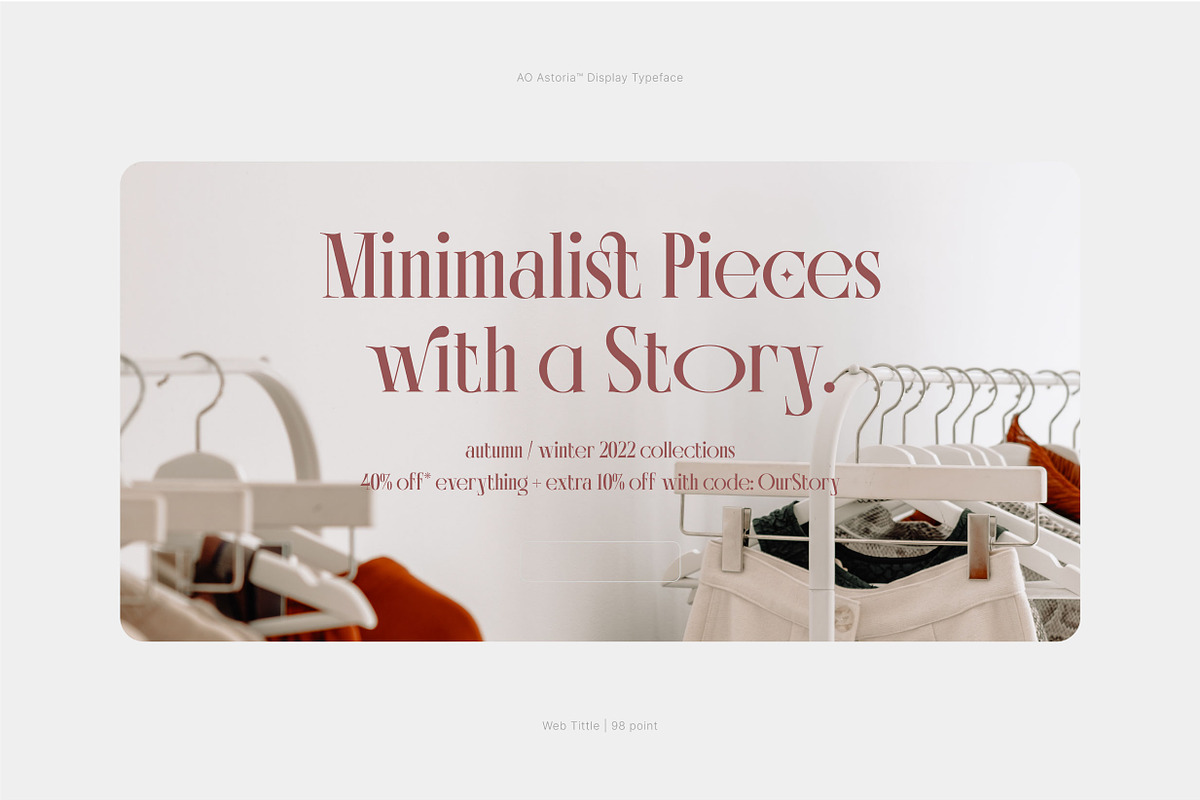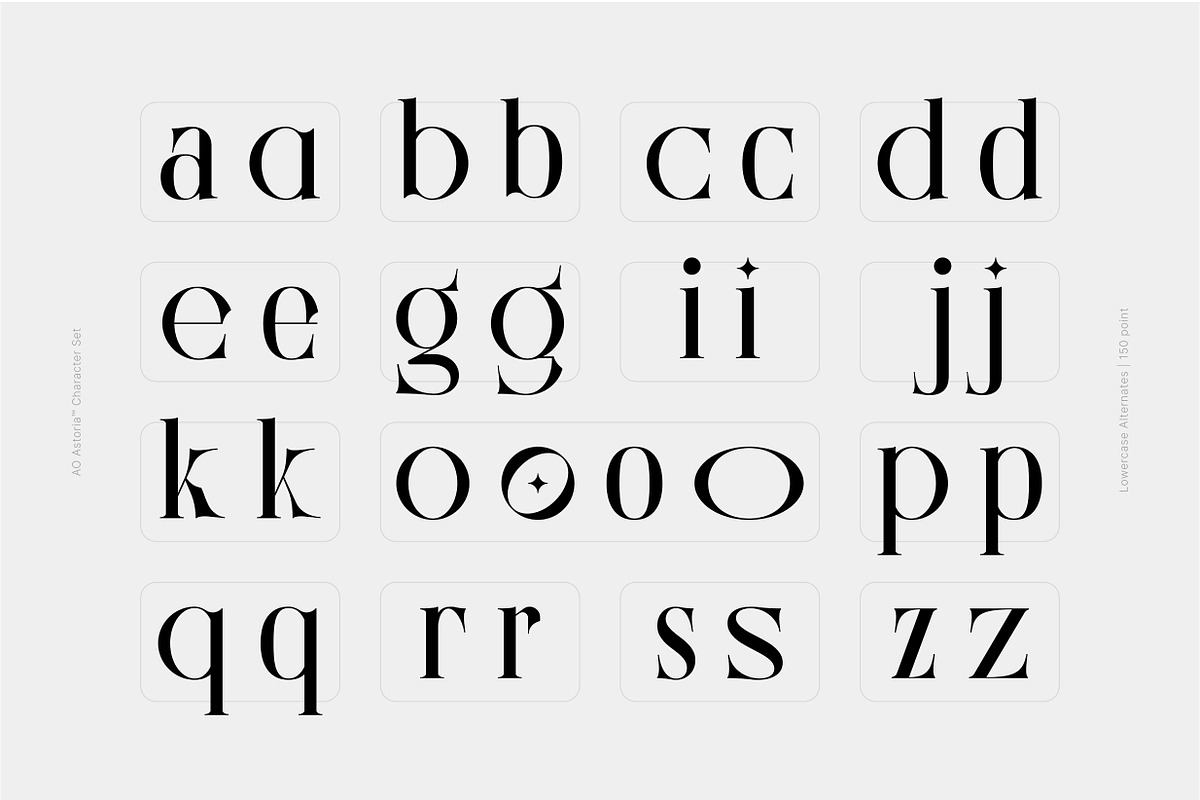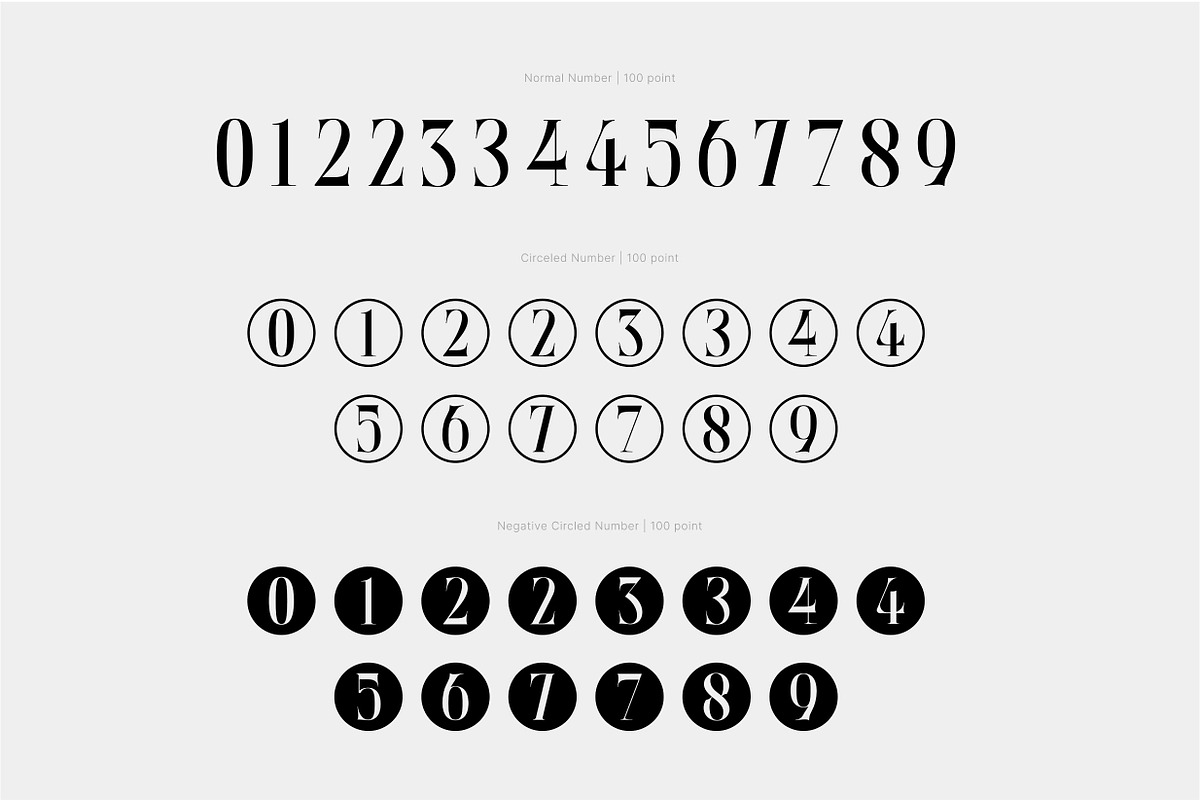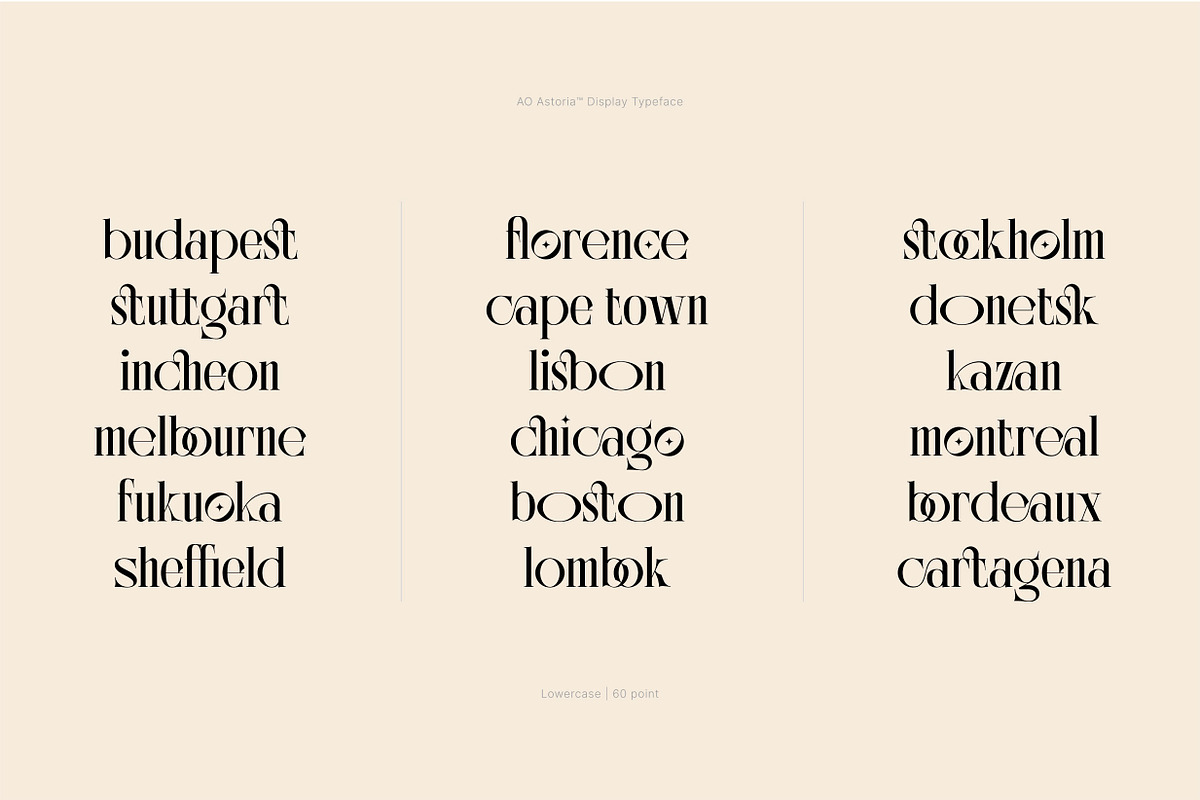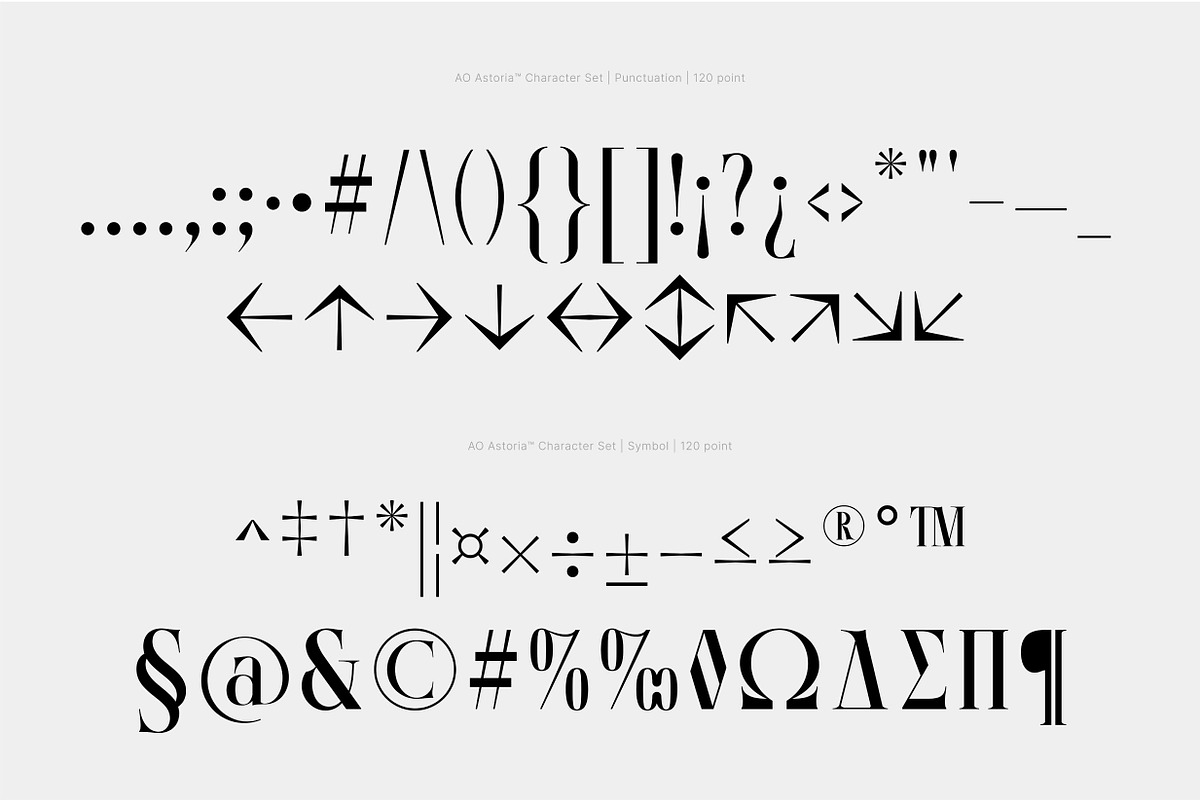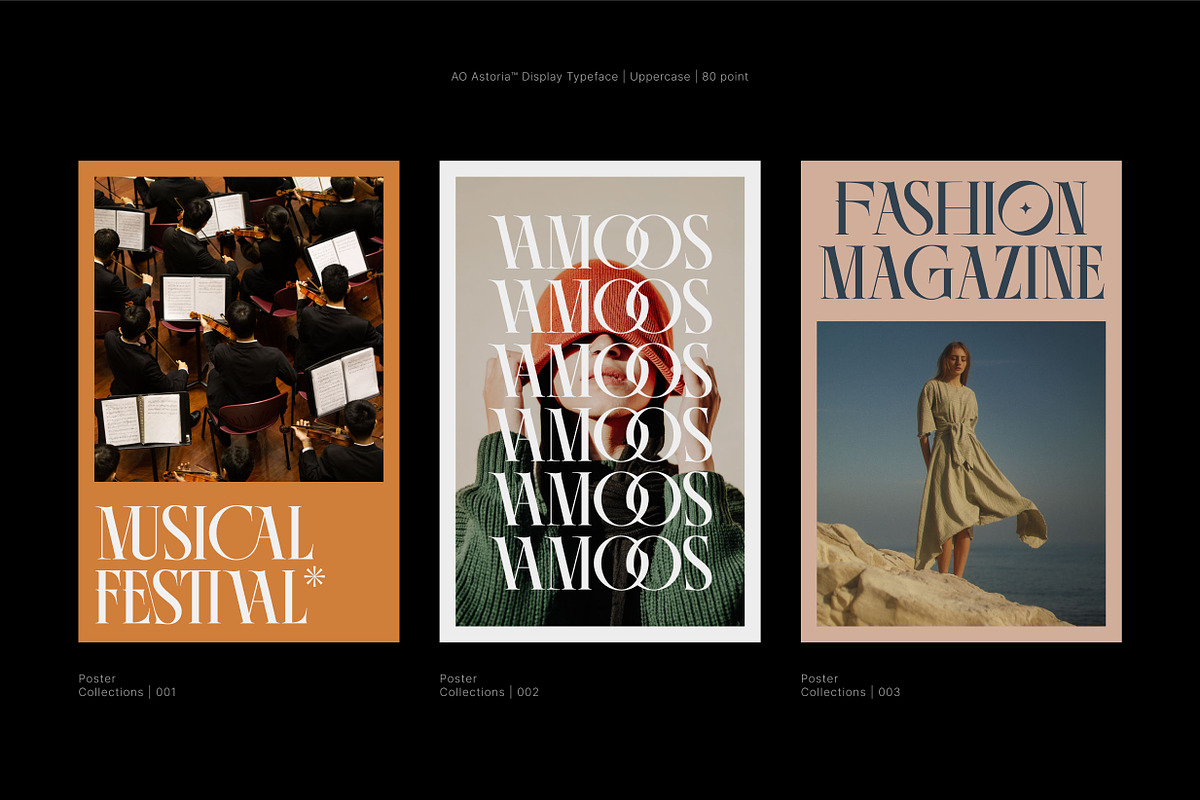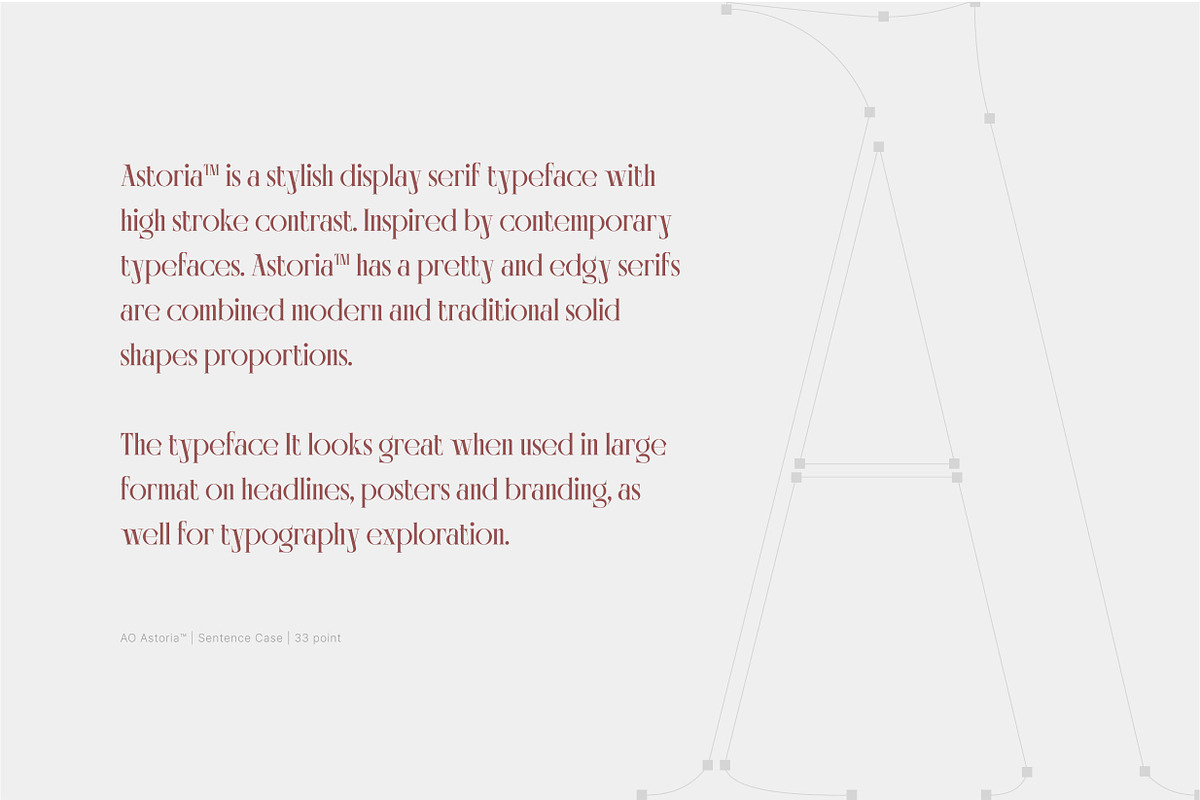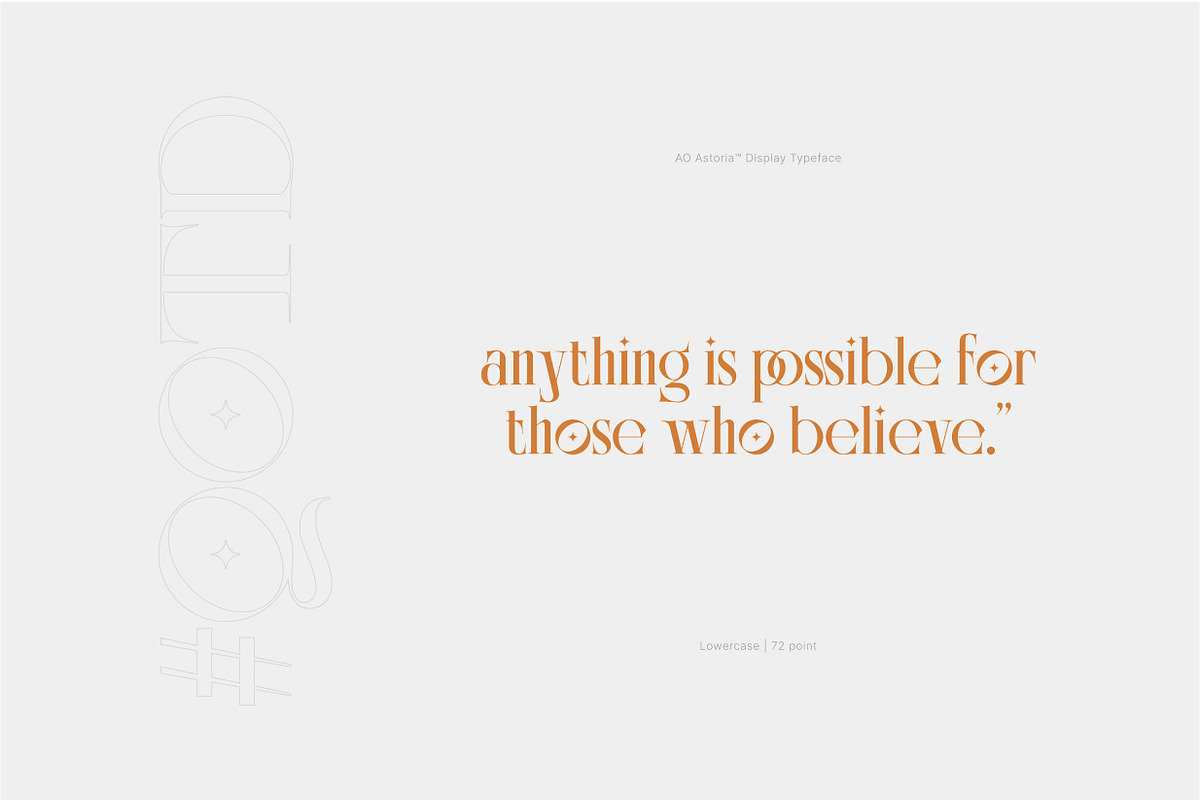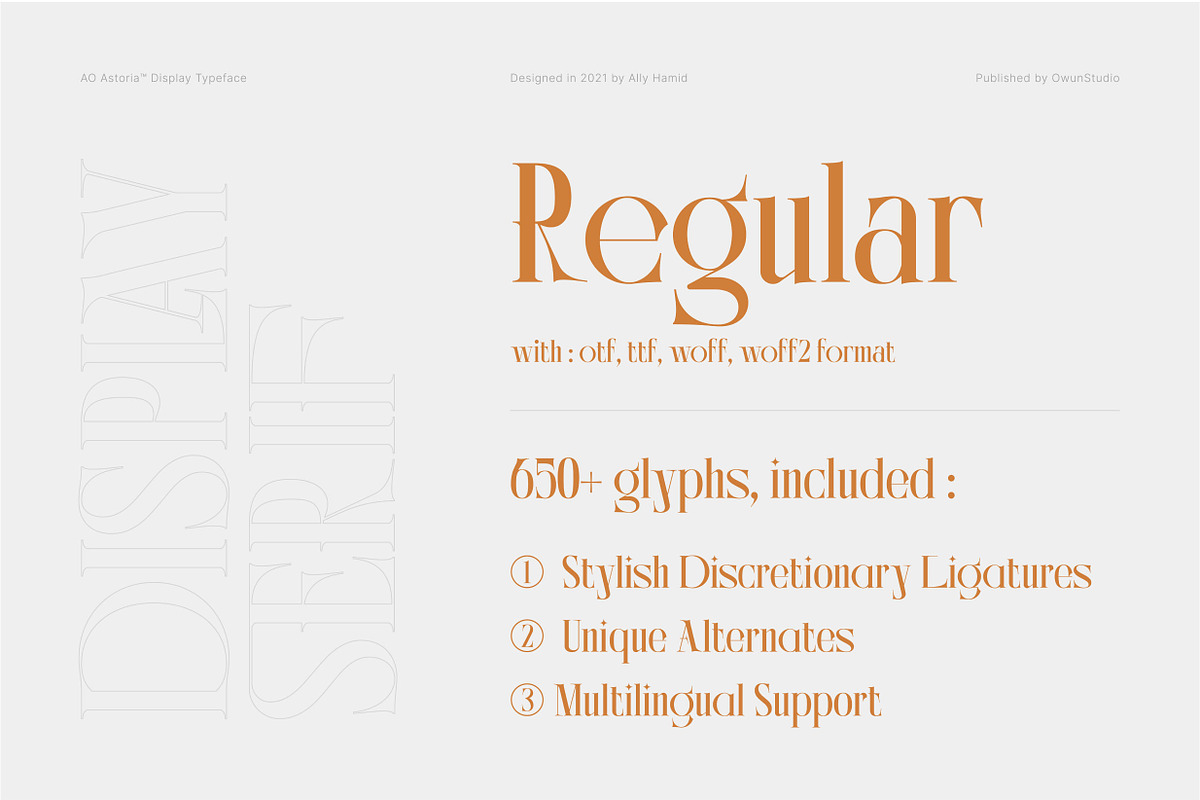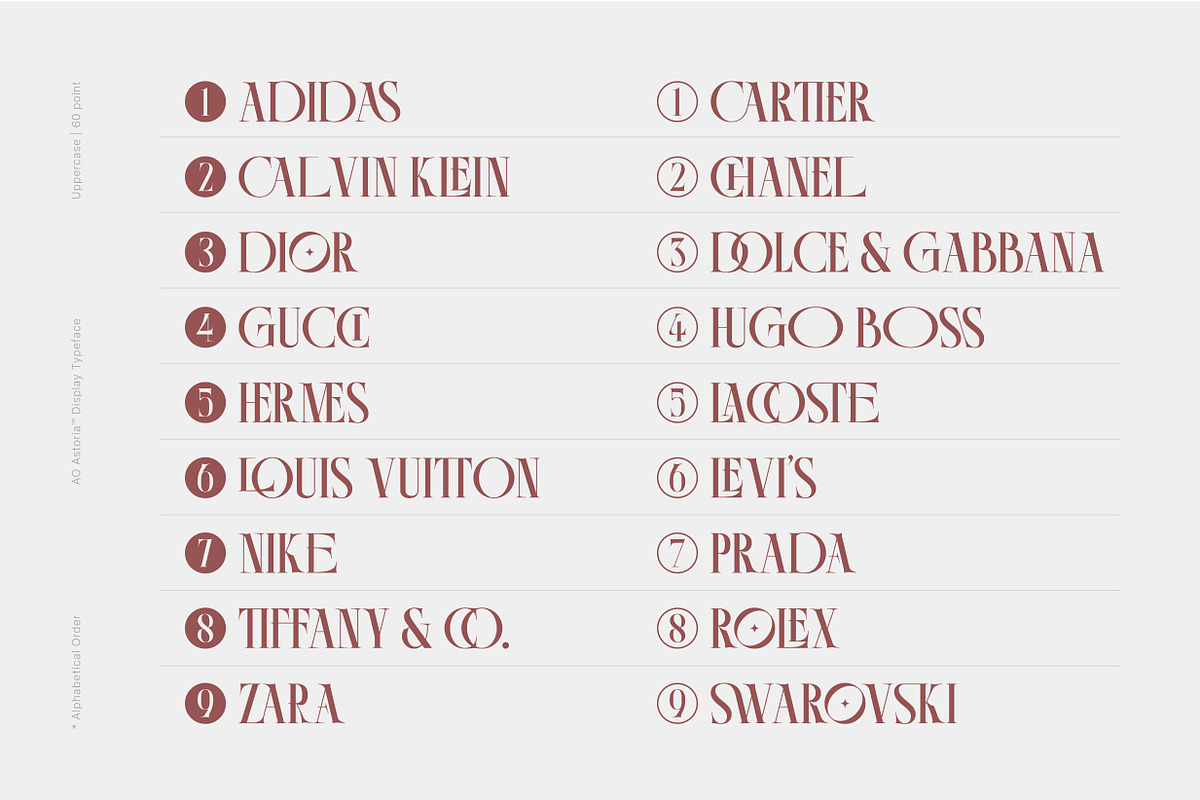
AO Astoria - Display Typeface
AO Astoria is a stylish serif design with a high stroke contrast. Inspired by contemporary typefaces, Astoria has edgy serifs combined with traditional proportions. The typeface looks great when used in large format on headlines, posters and branding, as well for typography exploration.